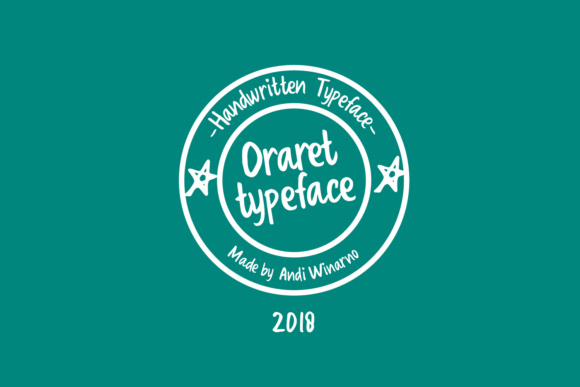
Let us introduce Oraret, an exceptionally animated and vibrant handwritten font. Experience a retro journey as you design with this captivating typography, carrying the joyous spirit of the 1990s.
Oraret's playful nature and expressive style bring a touch of nostalgia to your projects. With its whimsical handwritten strokes and a delightful collection of extras, you'll create designs that resonate with an authentic and captivating energy.
Imagine crafting logos that dance with personality, branding that exudes a sense of fun and freedom, or social media posts that spark joy and engagement. Oraret is your creative companion, ready to infuse your designs with a touch of retro delight.
Its versatility shines whether you're designing for print or digital media. Elevate your posters, flyers, and brochures with an eye-catching touch, or bring your website and social media presence to life with a font that radiates charm.
So, embrace the magic of the '90s with Oraret. Let its playful spirit inspire your creations and transport your designs into a realm of pure delight. Dive into the wonderful world of Oraret and unlock the power of retro-inspired typography today!